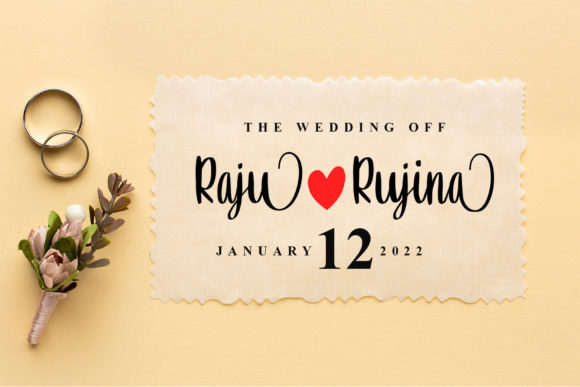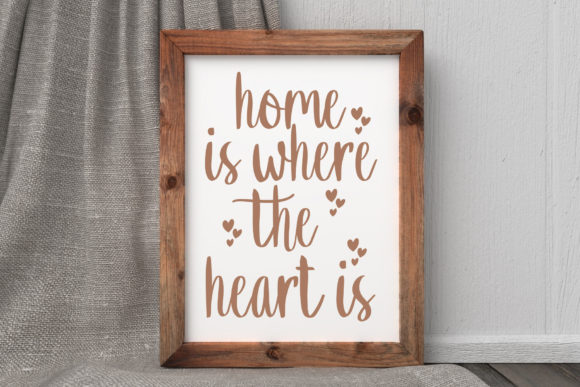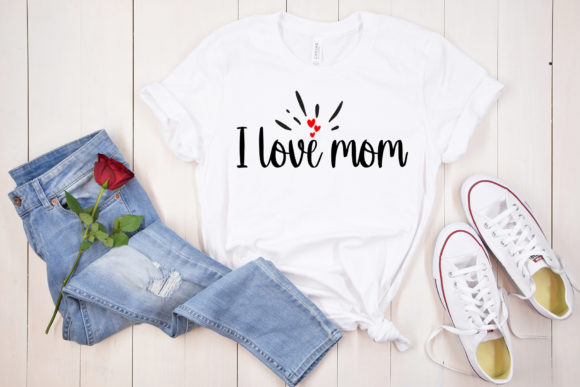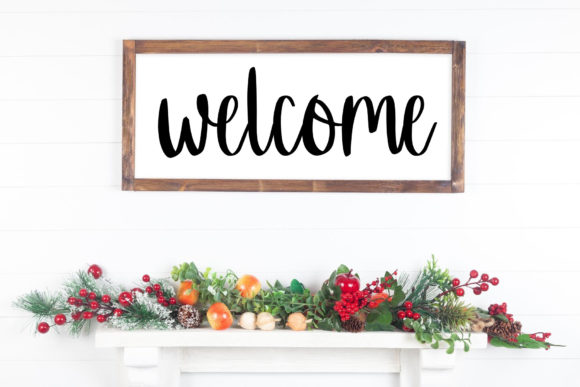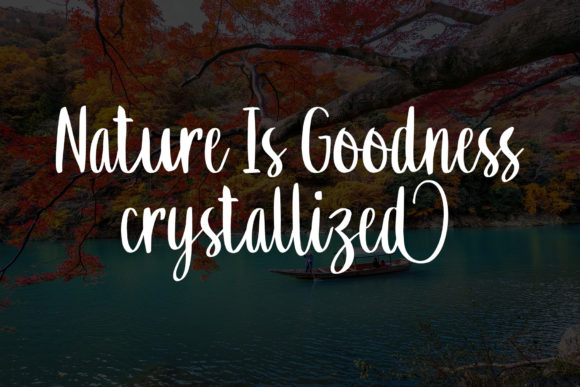
Introducing Crystallized Script Font: Elevate Your Designs with Elegance
Are you a designer or crafter looking for a font that can add a touch of sophistication and elegance to your creative projects? Look no further than Crystallized Script Font. This beautiful, delicate, and flowing handwritten font is perfect for a wide range of designs, from wedding invitations and branding materials to digital products and craft projects.
A Delicate and Elegant Font
Crystallized Script is a stunning example of a handwritten font that exudes elegance and refinement. Its delicate strokes and flowing lines create a sense of movement and fluidity, making it perfect for designs that require a touch of sophistication. The font’s beautiful and well-balanced characters ensure that it matches a wide pool of designs, making it a versatile addition to your font collection.
Perfect for a Wide Range of Designs
One of the best things about Crystallized Script Font is its versatility. It can be used for a wide range of designs, including:
- Digital products, like ebooks and printables
- Craft projects, such as handmade cards and scrapbooking
Whether you’re creating a romantic wedding invitation or a bold brand identity, Crystallized Script Font is sure to make your design stand out.
Why Choose Crystallized Script Font?
So, why should you choose Crystallized Script Font for your next design project? Here are just a few reasons:
- Elegance and sophistication: Crystallized Script Font adds a touch of elegance and refinement to any design.
- Versatility: The font’s versatility makes it perfect for a wide range of designs and projects.
- Easy to read: Despite its delicate nature, Crystallized Script Font is easy to read, even in smaller sizes.
- Unique and eye-catching: The font’s unique and flowing lines make it stand out from more traditional fonts.
How to Use Crystallized Script Font
Using Crystallized Script Font in your designs is easy. Here are a few tips to get you started:
- Pair it with a bold font: Pair Crystallized Script Font with a bold font for a striking contrast.
- Use it as a headline font: Use Crystallized Script Font as a headline font to add a touch of elegance to your design.
- Experiment with colors: Experiment with different colors and textures to add depth and interest to your design.
In conclusion, Crystallized Script Font is a beautiful and elegant handwritten font that is perfect for designers and crafters looking to add a touch of sophistication to their creative projects. Its versatility, elegance, and ease of use make it a valuable addition to any font collection. So why not give Crystallized Script Font a try and see how it can elevate your designs?